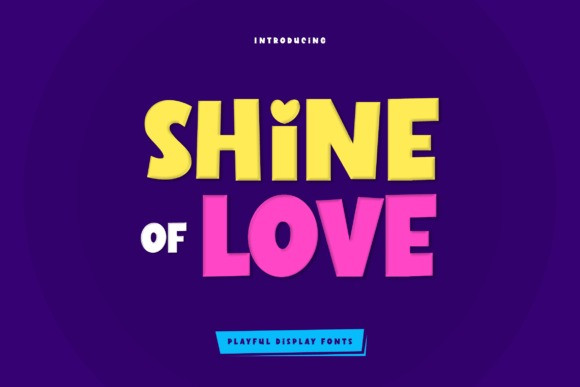
Shine Of Love Font
Shine of Love Font is a cute and colorful display font. It embodies playfulness and authenticity and is the perfect choice for any children’s activity or school project. Add this chunky lettered font to your designs and notice how it makes them come alive!